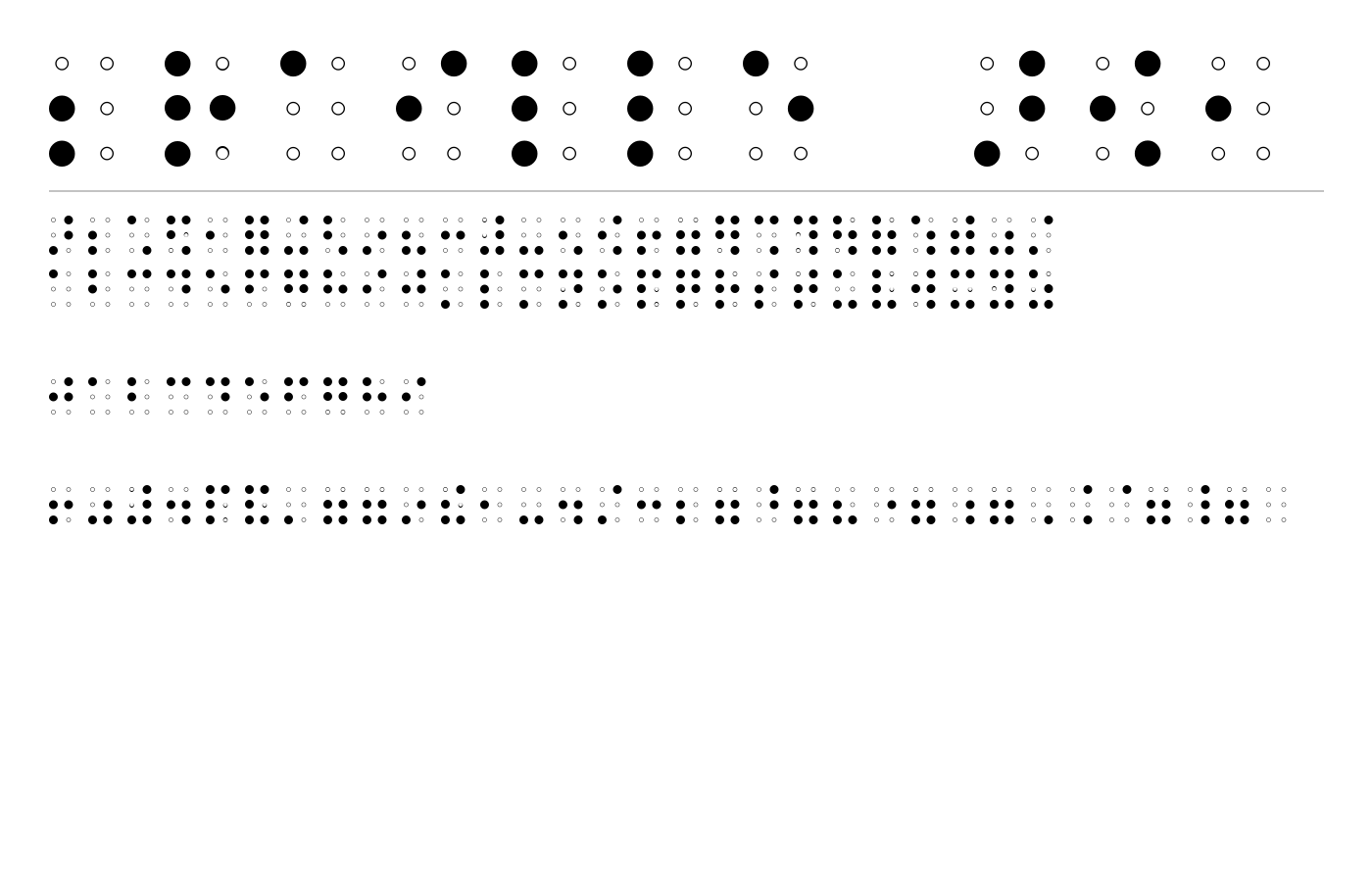
Braille AOE is a unique font designed to replicate the tactile Braille writing system visually, featuring a grid of solid and hollow dots that form the embossed patterns used by visually impaired readers. Its clean, geometric dot arrangement gives it a modern, minimalistic look, making it ideal for educational materials, accessibility-themed projects, or creative designs that seek to highlight inclusivity and communication. This font works best in display contexts where clarity and symbolic representation are important, such as infographics, logos, and awareness campaigns.
Braille AOE Font
About Braille AOE Font